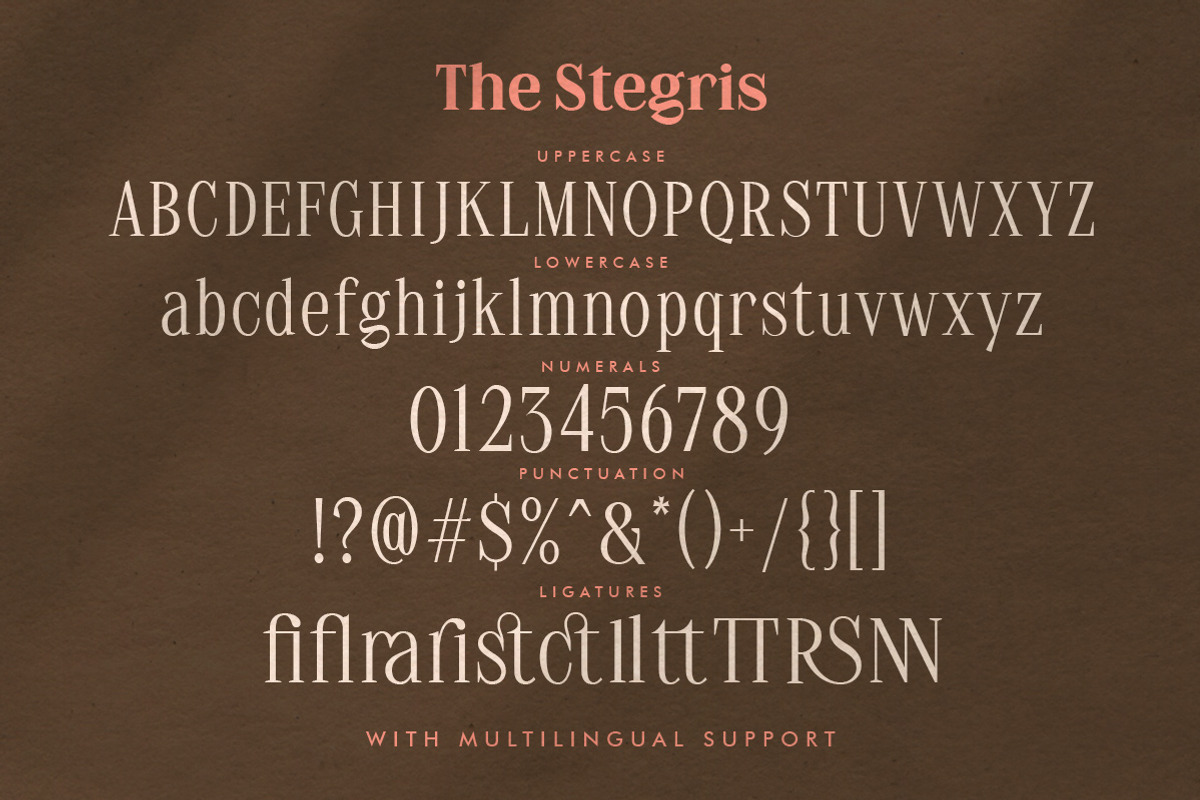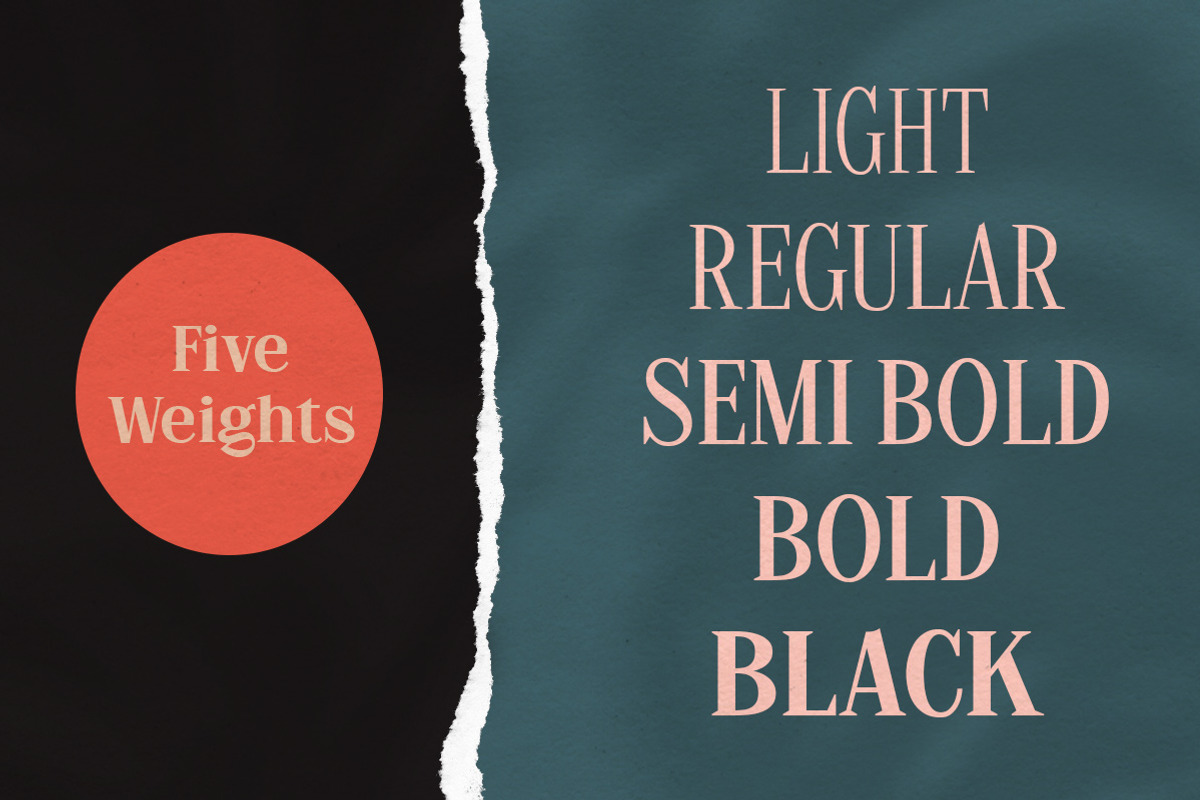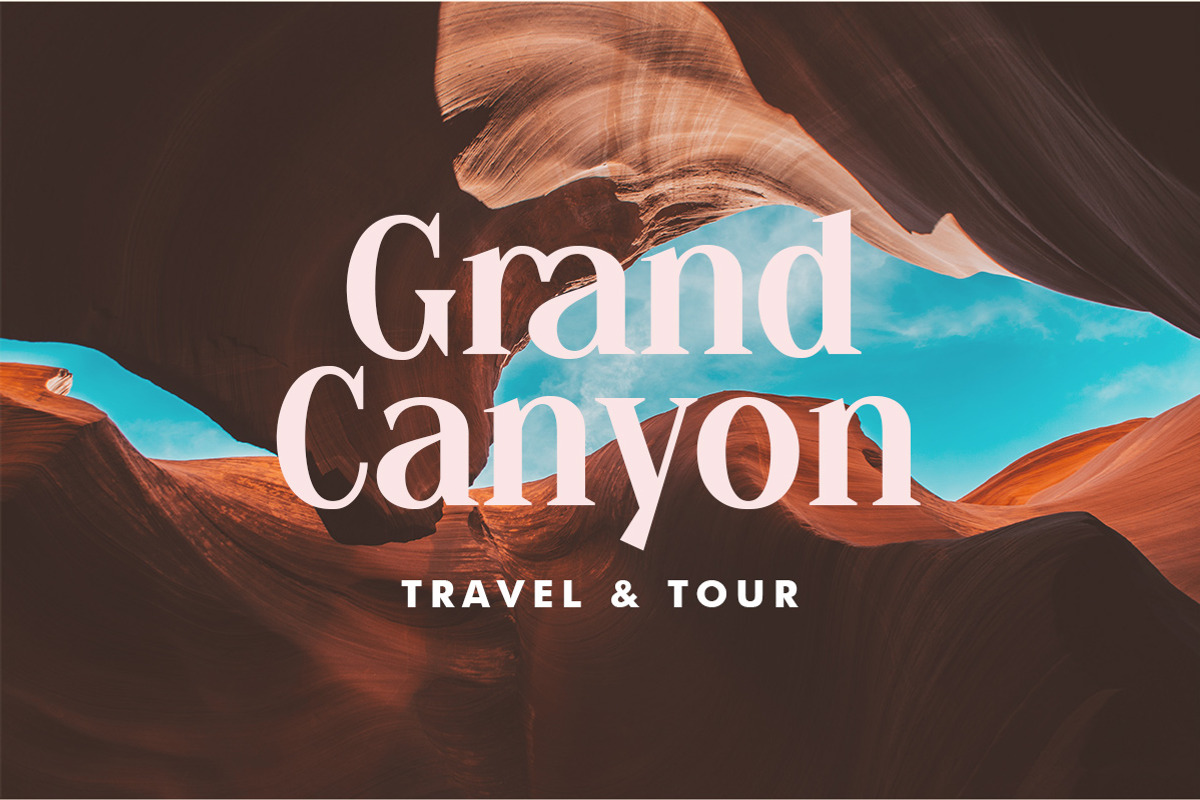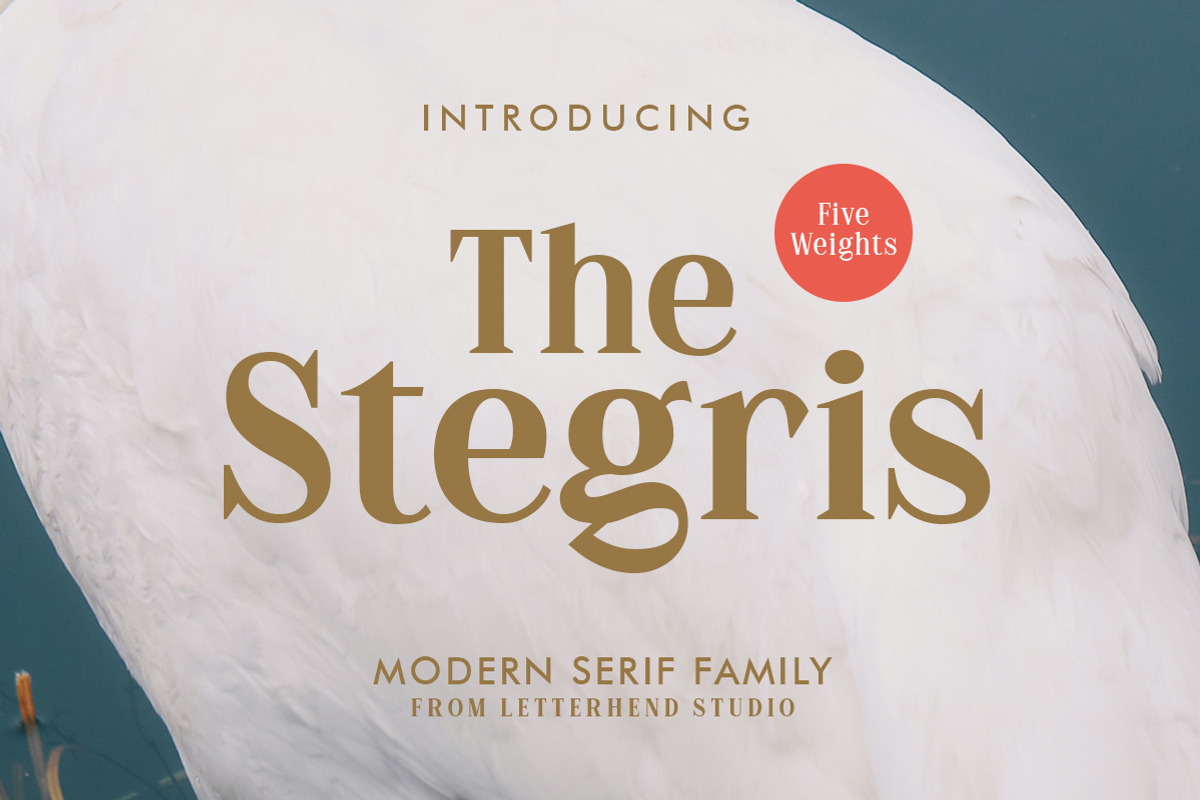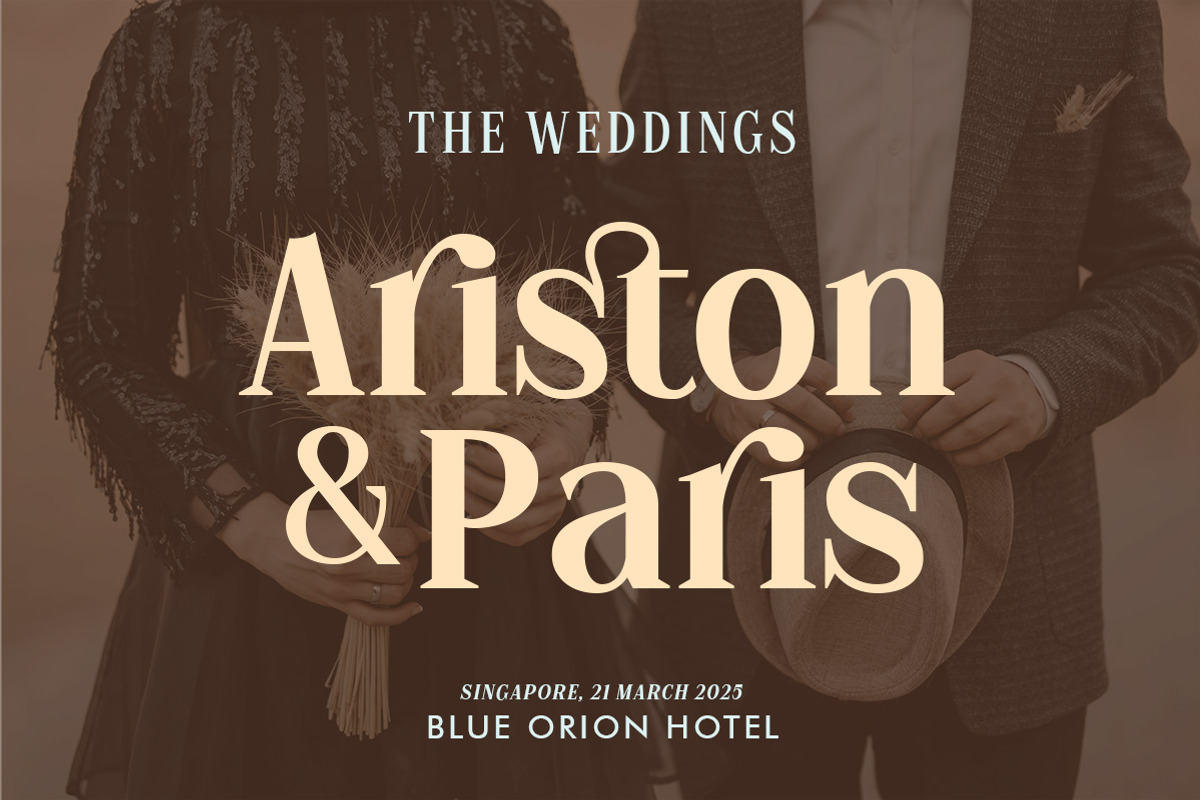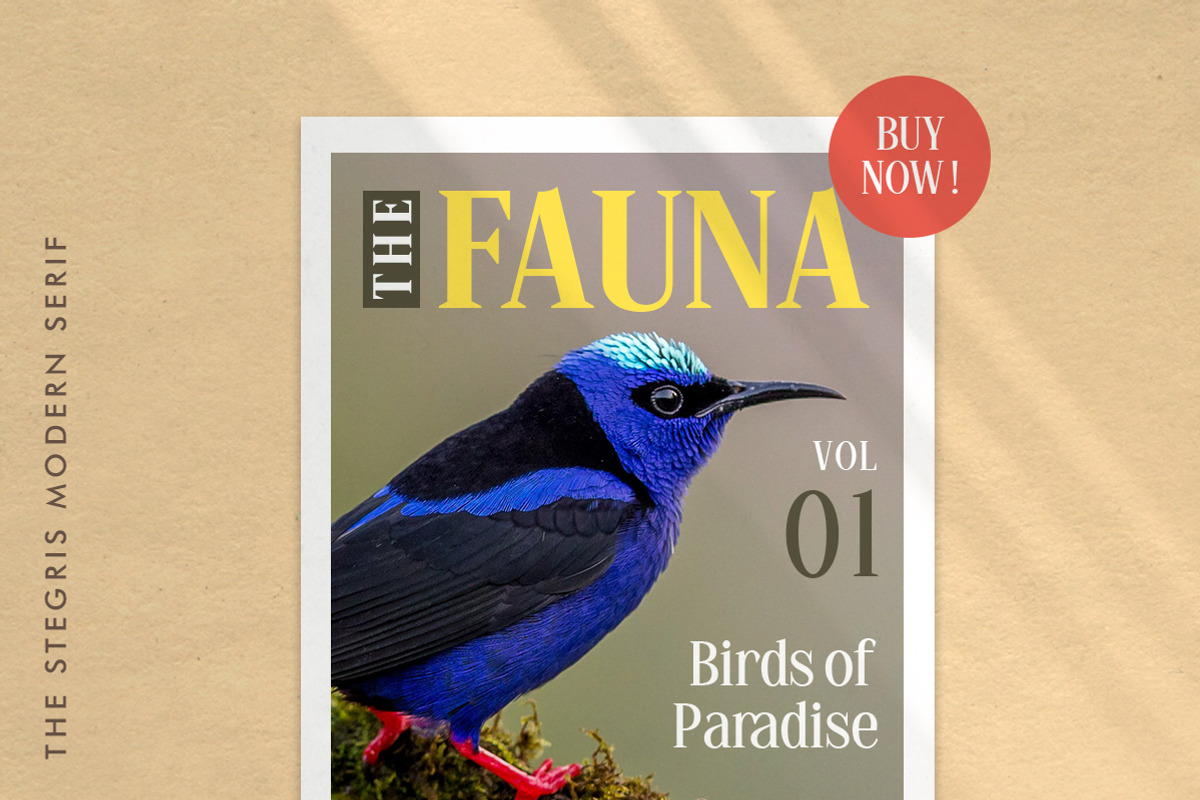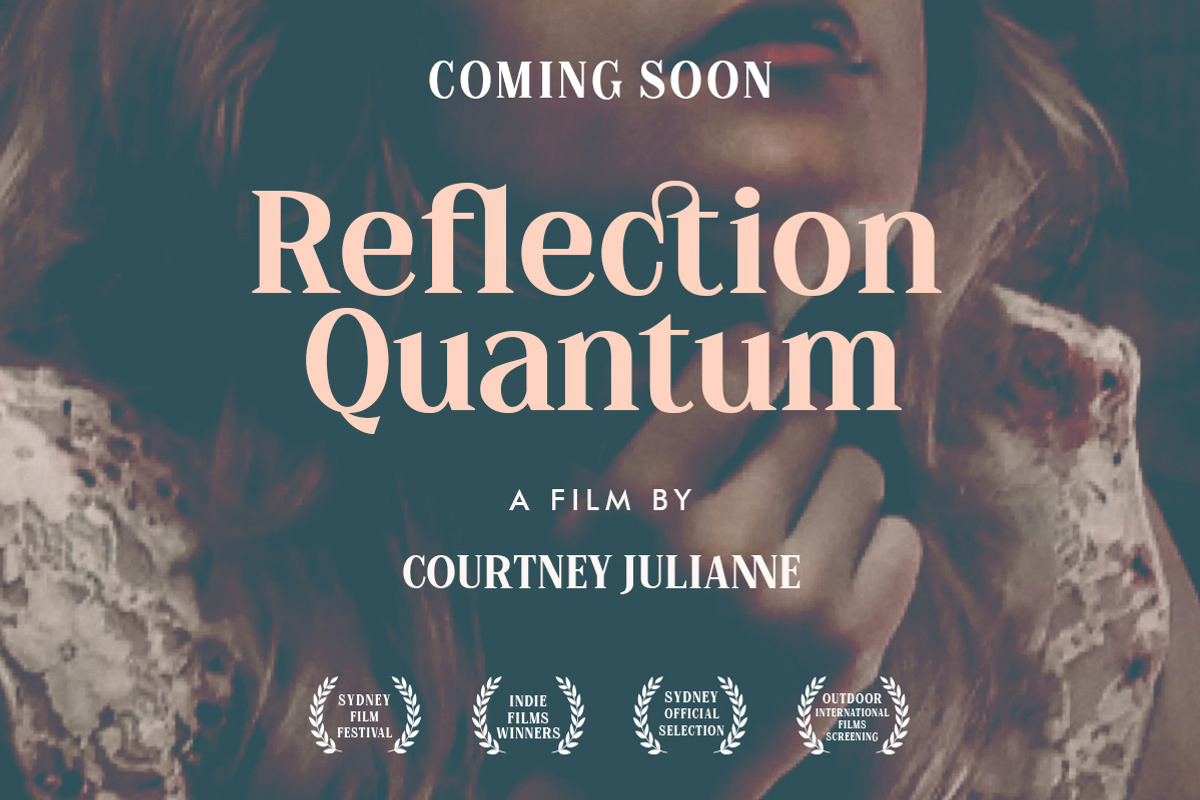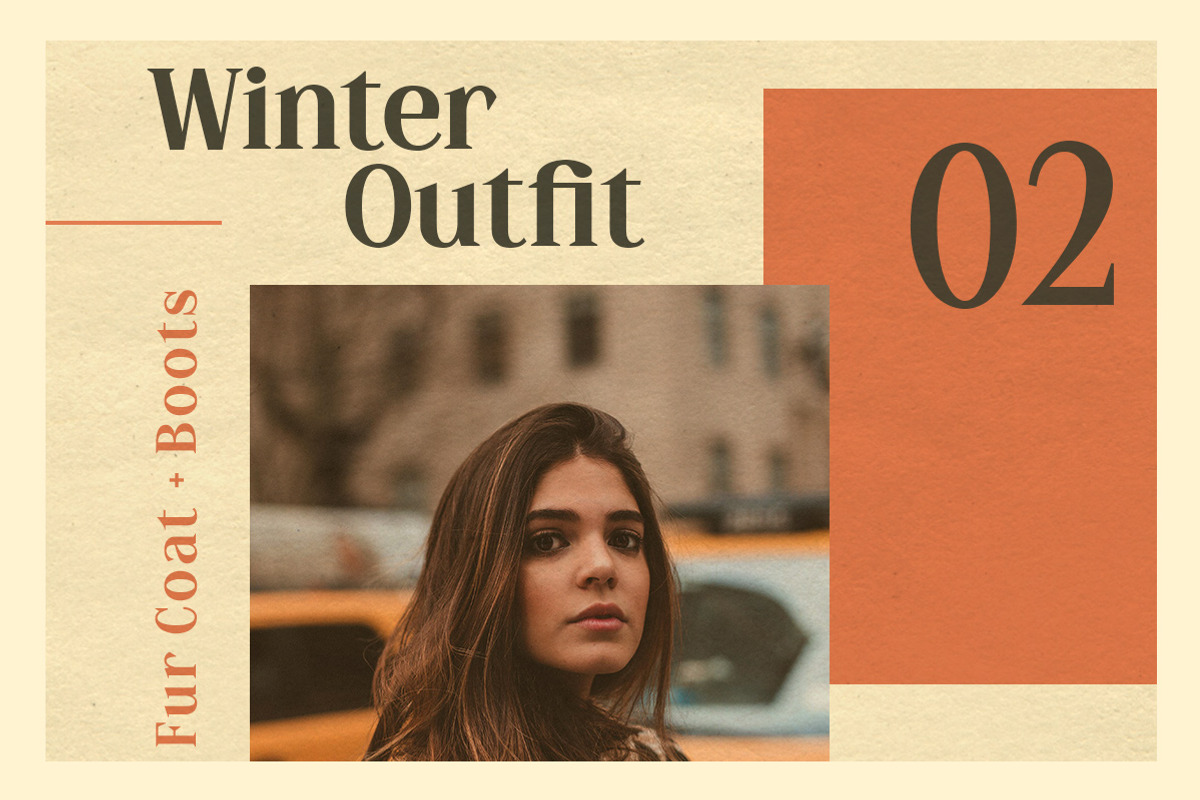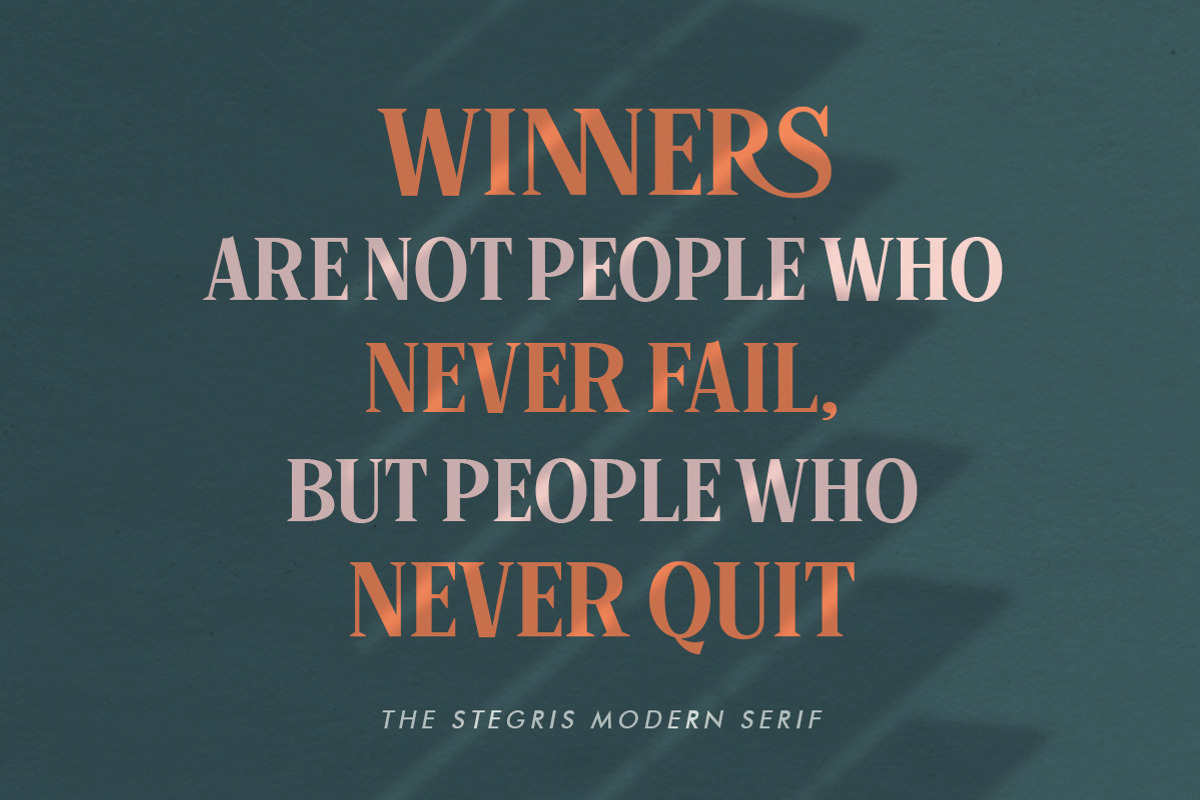
The Stegris Serif Family - 5 Weights
Introducing, The Stegris - Modern Serif Family. A pack of serif typeface with 5 weights :
- Light,
- Regular,
- Semi bold,
- Bold
- Black
ready to choose according to your needs. This typeface also has special feature with its ligatures which make it unique even more.
This type of font perfectly made to be applied especially in logo, and the other various formal forms such as invitations, labels, logos, magazines, books, greeting / wedding cards, packaging, fashion, make up, stationery, novels, labels or any type of advertising purpose.
- alternates